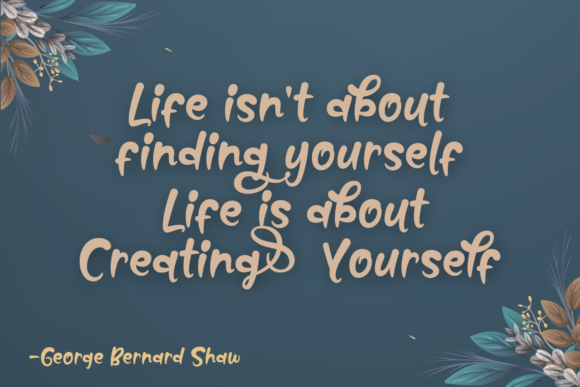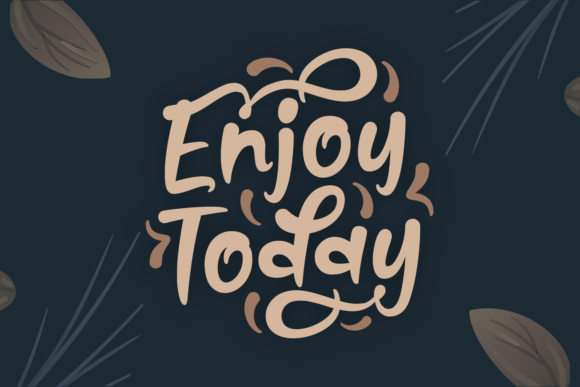
Introduction to Ily Font
Ily is a stunning bold and strong handwritten display font.
This is the perfect font for leaving an impression .
Key Features of Ily Font
Why Choose Ily Font?